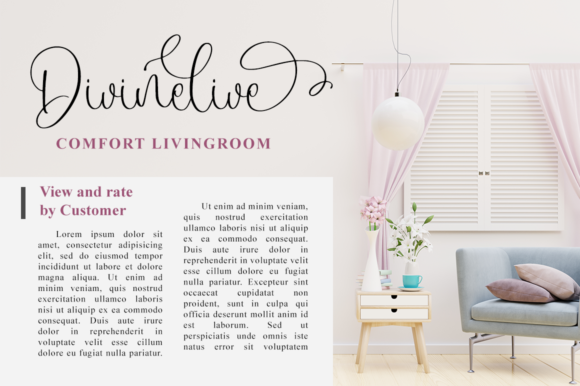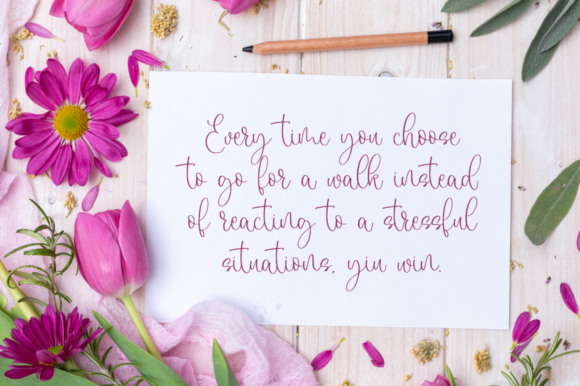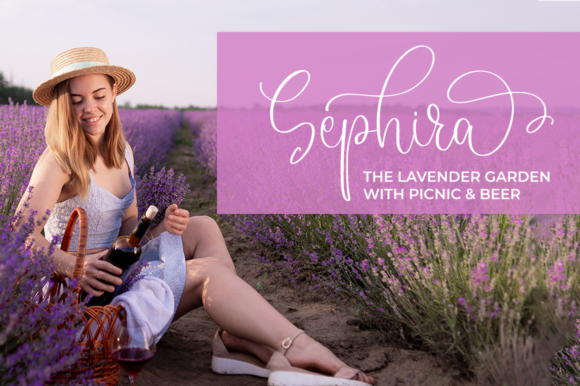
The Elusive Perfect Font: My Encounter with Dorceline
Ah, the quest for the perfect font! It’s a journey many of us designers and creative hobbyists can relate to. I recall working on a wedding invitation project, determined to create something truly special for the happy couple. The design was coming along beautifully, but then I hit a roadblock: finding the ideal font. That’s when I stumbled upon Dorceline, a stunning script font that would change the game.
First Impressions: A Beautiful Script Font
Dorceline is a beautiful script font that exudes elegance and modernity. Its refined style is perfect for a wide range of creative projects, including logos, branding, invitations, stationery, wedding designs, social media posts, and many more! What caught my attention was its PUA encoding, which allows easy access to all glyphs and swashes.
An Honest Review: The Good and the Quirks
What I Love About Dorceline ✨
- ✅ Elegant and modern design
- ✅ Highly versatile for various creative projects
- ✅ Easy to read and understand, even in smaller sizes
- ⚠️ Some users might find the font a bit too refined or formal for certain projects
- ⚠️ Limited availability of language support (though it’s sufficient for most English-based projects)
The Designer Inspiration Behind Dorceline
While the origins of Dorceline might be shrouded in mystery, it’s easy to imagine that its designer was inspired by the beauty of handwritten calligraphy. Perhaps they sought to create a font that would bring a touch of elegance and sophistication to everyday designs. Whatever the story, Dorceline has undoubtedly become a stunning addition to the world of typography.
Q: What is PUA encoding, and how does it benefit font users?
PUA (Private Use Area) encoding allows font designers to include additional glyphs and characters that aren’t part of the standard Unicode range. This means users can access a wider range of swashes, ligatures, and other special characters, making it easier to create unique and creative designs.